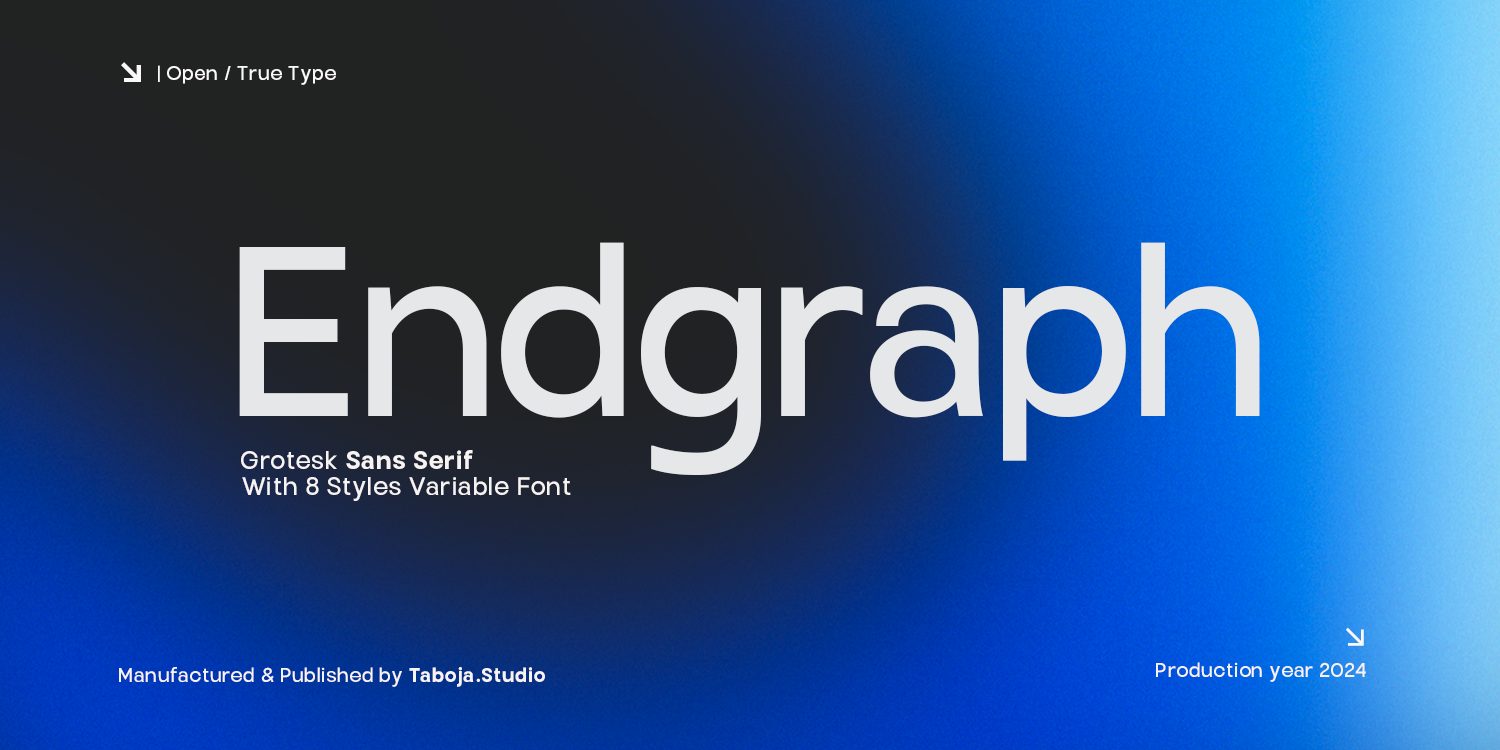
TBJ Endgraph 8 Sans Family Font is a sleek, exceptionally versatile, and meticulously crafted typeface, perfectly suited for projects that demand pristine clarity, modern aesthetics, and outstanding functional performance. Imagine it forming the crisp typography for cutting-edge digital interfaces, providing highly legible text for complex data dashboards, or enhancing the readability of online reports and interactive presentations. It's also an excellent choice for crafting impactful headlines in advertising campaigns, designing effective and minimalist branding for tech startups, or bringing a reliable and structured presence to extensive digital documents and e-commerce platforms where efficiency and clarity are paramount. If you're looking for a font that combines a strong visual presence with exceptional legibility and adaptability across numerous applications, TBJ Endgraph 8 Sans Family Font is an outstanding selection.
What makes TBJ Endgraph 8 Sans Family Font so exciting? It’s its unparalleled ability to blend geometric precision with subtle humanist touches, allowing it to be incredibly adaptable for a wide array of design challenges. This font boasts expertly crafted letterforms and optimized spacing that ensure exceptional readability across various sizes and mediums, from sharp digital displays to high-resolution printed materials. Its clean lines, neutral yet inviting character, and professional appearance allow it to integrate seamlessly into diverse design ecosystems, supporting content without distraction while conveying a forward-thinking and sophisticated sensibility. Designers will appreciate its understated elegance and its capacity to lend an air of modern professionalism to any project, making it a highly dependable choice for achieving a polished and engaging outcome.
The TBJ Endgraph 8 Sans Family Font is renowned for its comprehensive range of weights and styles, providing maximum flexibility for designers. As a full "Sans Family" font, you can generally expect to find numerous variations such as Thin, Light, Regular, Medium, SemiBold, Bold, ExtraBold, and Black, often accompanied by matching italic versions for each. This extensive family ensures that TBJ Endgraph 8 Sans Family Font can be used to create sophisticated typographic hierarchies, maintain consistent branding across diverse mediums, and offer flexible design solutions for both print and digital environments. Discover the unwavering clarity and contemporary style of TBJ Endgraph 8 Sans Family Font Free Download for your next significant project.